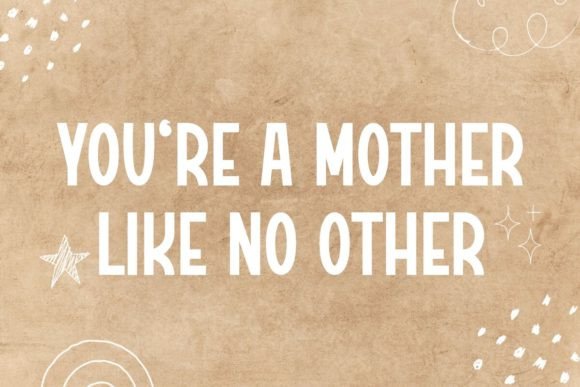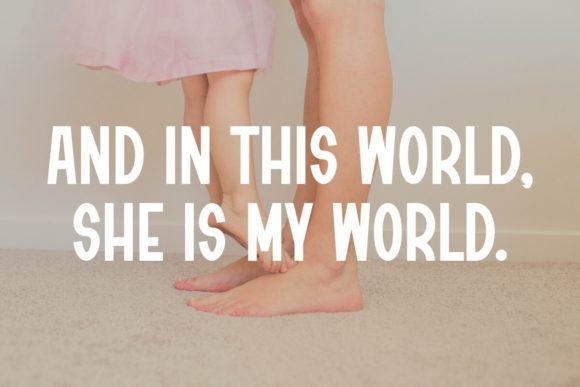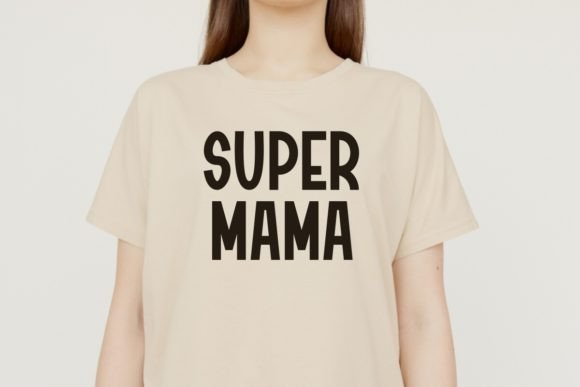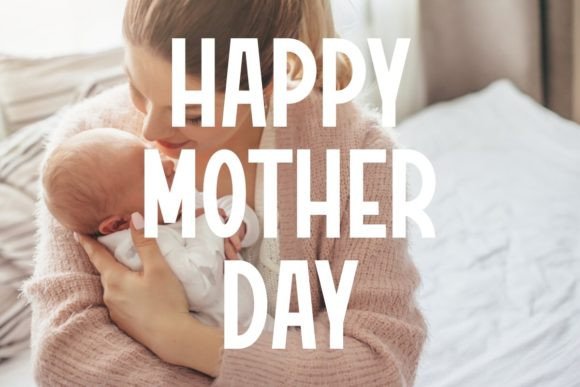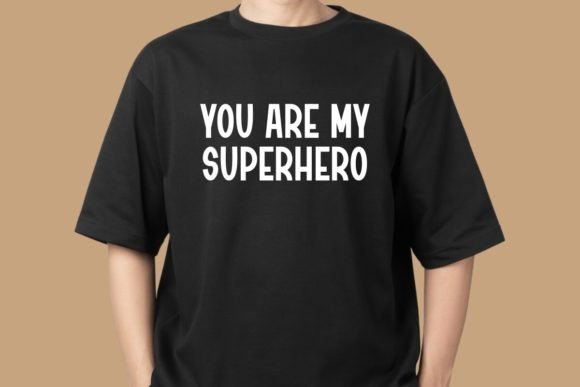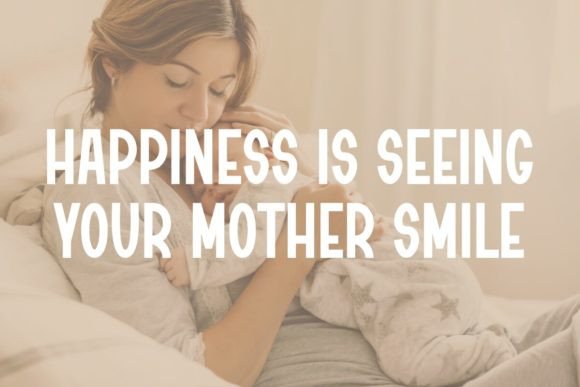
Introduction to Mama Canva Font Font
Fonts play a crucial role in design, and the Mama Canva Font font is a typeface that brings both character and versatility to any project. Whether you’re working on a branding project, a website, or a print design, the Mama Canva Font font offers a unique style that can elevate your work.
Mama Canva is condensed vintage and clean bold sans serif that inspired by motherβs day themes.
This font adds a touch of nostalgic elegance and clarity to any design, ensuring your creations stand out with a timeless and heartfelt appeal Perfect for creating beautiful backgrounds, quotes, posters, t-shirts, mugs, tote bags, and invitation papers.
Key Features of Mama Canva Font Font
Why Choose Mama Canva Font Font?
The Mama Canva Font font is more than just a typeface β it’s a design tool that helps you communicate your message with style and clarity. Its unique character set and versatile design make it suitable for a wide range of applications, from elegant invitations to bold headlines.
With its carefully crafted letterforms and balanced proportions, the Mama Canva Font font ensures readability and visual appeal across all mediums.
What makes Mama Canva Font font special?
The Mama Canva Font font stands out with its unique design, exceptional readability, and versatility across various design applications.